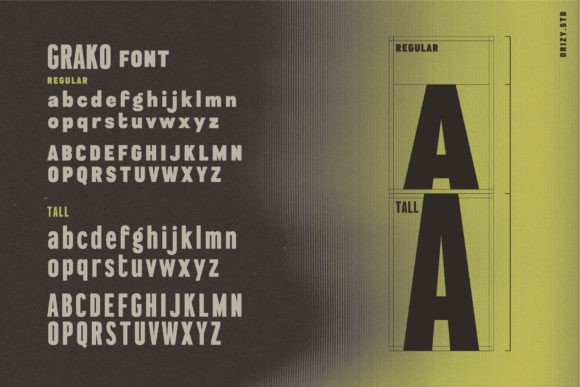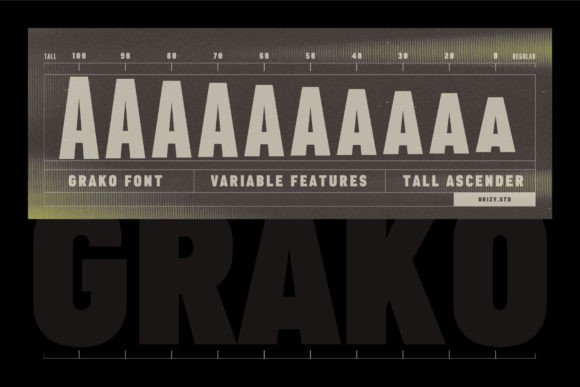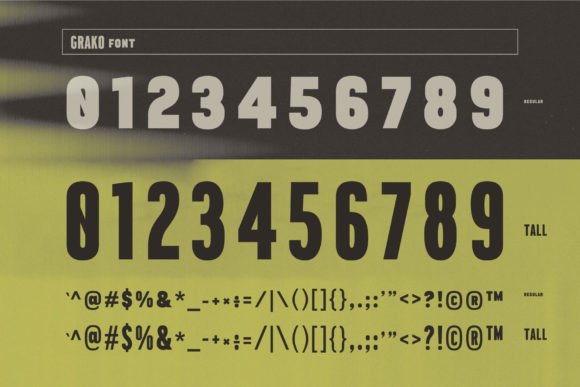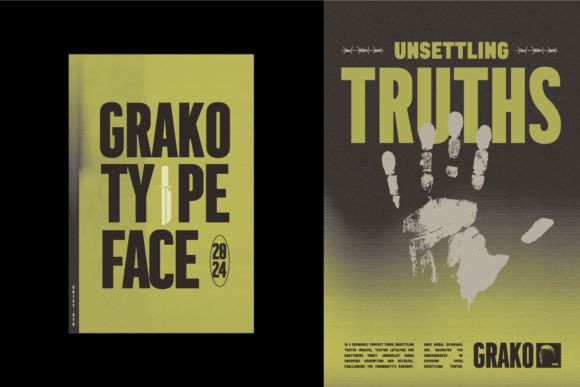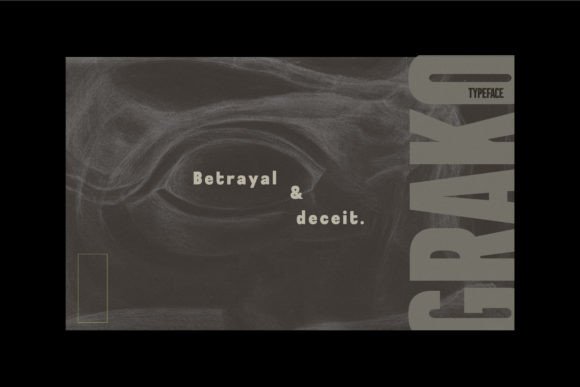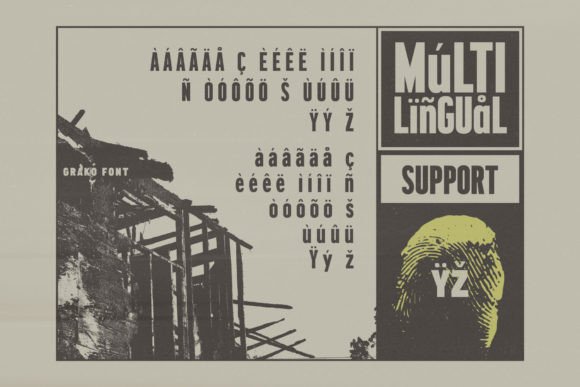
Introducing Grako Font: The Ultimate Bold Condensed Sans Serif Variable Font
In the world of typography, a good font can make all the difference in the success of a design project. For designers and crafters looking for a bold and modern aesthetic, Grako Font is an exciting new addition to the world of typography. Grako – Bold Condensed Sans Serif Variable Font is a cutting-edge typeface designed to make a powerful impact on your visual projects, especially Noir Crime.
What is Grako Font?
Grako Font is a bold condensed sans serif variable font that commands attention with its strong and modern design. Its condensed form makes it perfect for headlines, titles, and any design element that requires a powerful aesthetic. Whether you’re working on a Noir Crime project or any other design that requires a bold statement, Grako Font is the perfect choice.
Key Features of Grako Font
- Bold and Condensed Design: Grako Font’s bold and condensed design makes it perfect for headlines, titles, and any design element that requires a strong, modern aesthetic.
- Variable Font: As a variable font, Grako allows for a range of weights and widths, making it versatile for various design applications.
- Sans Serif: The sans serif design of Grako Font gives it a clean and modern look that’s perfect for designs that require a sleek aesthetic.
- Noir Crime Inspiration: Grako Font was specifically designed with Noir Crime projects in mind, making it perfect for designers working in this genre.
Benefits of Using Grako Font
So why choose Grako Font for your design projects? Here are just a few benefits of using this powerful typeface:
- Instant Recognition: Grako Font’s bold and condensed design ensures instant recognition, making it perfect for headlines and titles.
- Versatility: As a variable font, Grako can be used for a range of design applications, from body text to headings.
- Modern Aesthetic: Grako Font’s clean and modern design makes it perfect for designers looking for a sleek aesthetic.
- Time-Saving: With Grako Font, designers can save time by using a single font for multiple design elements.
How to Use Grako Font in Your Designs
Using Grako Font in your designs is easy. Here are a few tips to get you started:
- Headlines and Titles: Use Grako Font for headlines and titles to make a powerful impact on your audience.
- Body Text: While Grako Font is bold and condensed, it can also be used for body text in larger sizes.
- Branding and Identity: Use Grako Font to create a strong brand identity that commands attention.
- Experiment with Weights and Widths: As a variable font, experiment with different weights and widths to find the perfect combination for your design.
In conclusion, Grako Font is a powerful and modern typeface that’s perfect for designers and crafters looking for a bold and condensed sans serif variable font. With its strong design and versatility, Grako Font is sure to make a powerful impact on your visual projects, especially Noir Crime. Whether you’re working on a headline, title, or body text, Grako Font is the perfect choice for designers looking for a sleek and modern aesthetic.